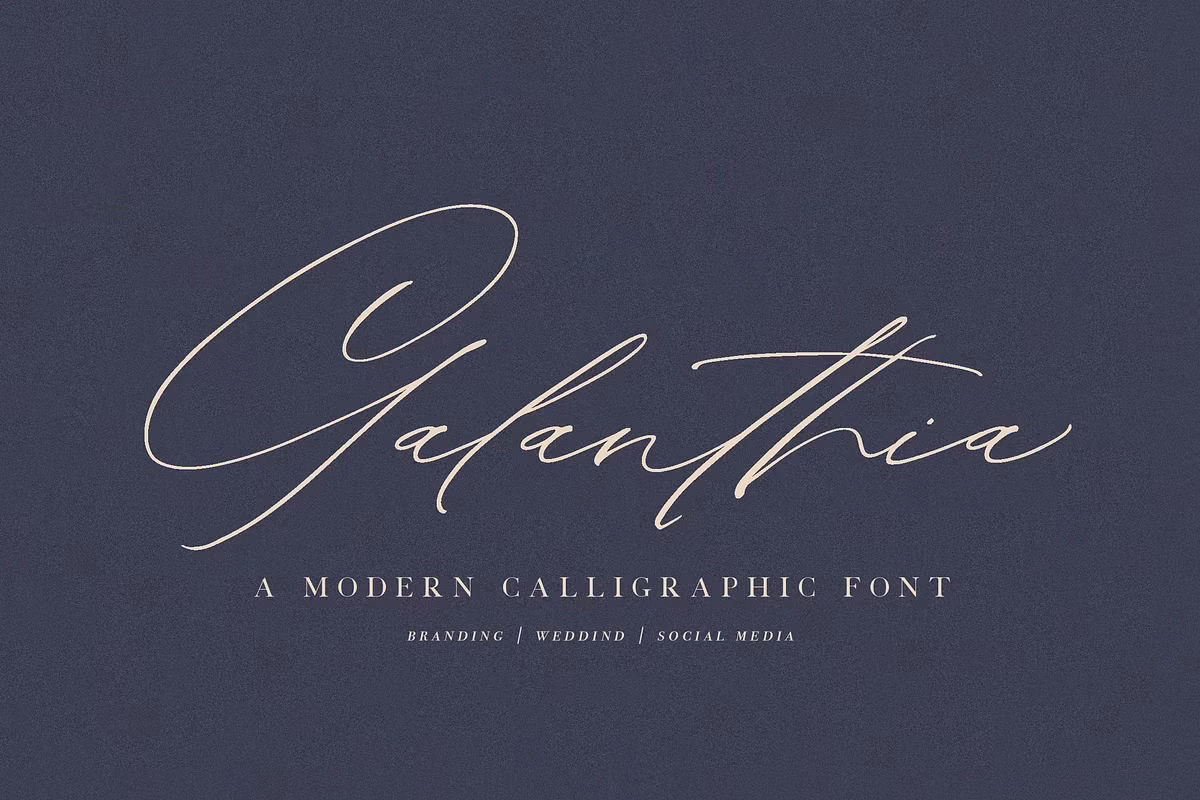
Galanthia Script | Wedding Font Free Download is an elegant and romantic handwritten script typeface, perfect for all types of wedding-related designs. With its smooth, flowing strokes and sophisticated swashes, this font is ideal for wedding invitations, greeting cards, save-the-date designs, branding, and any project that requires a personal, graceful touch.
Designed to evoke beauty and elegance, Galanthia Script | Wedding Font Free Download offers a refined yet intimate style that makes it a go-to choice for bridal content, luxury brands, and sophisticated stationery designs.